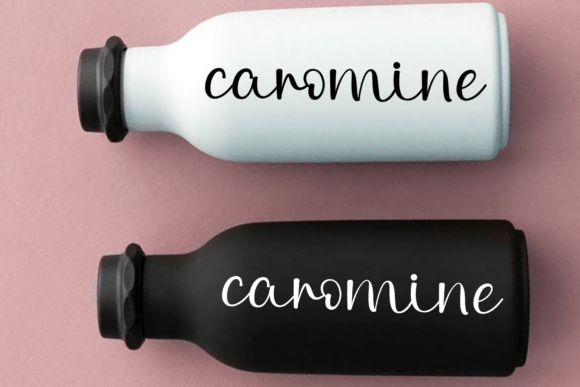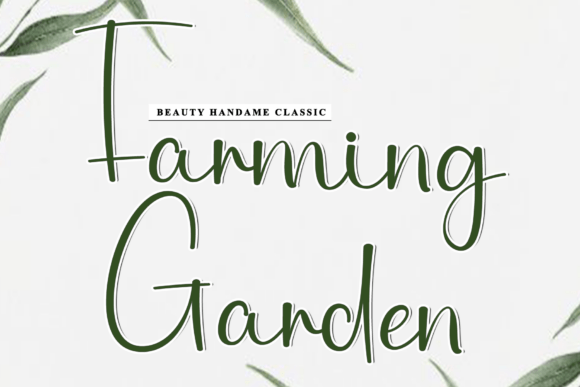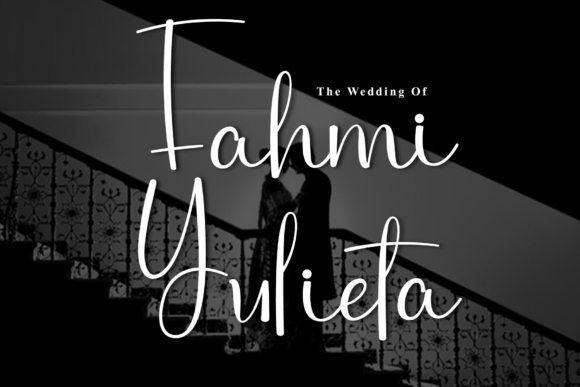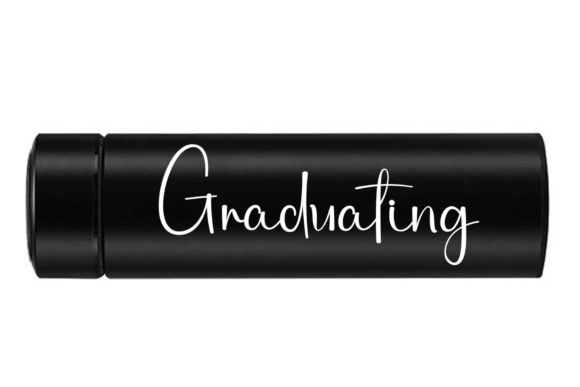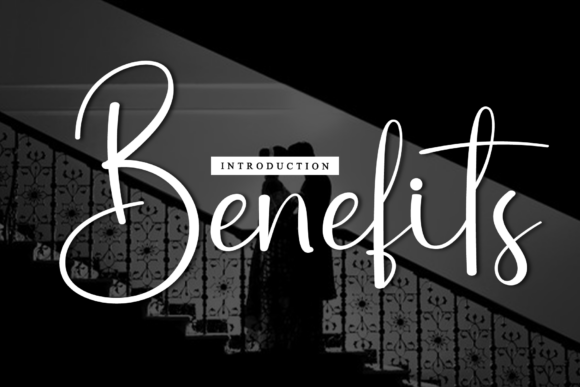
Discover the Charm of Benefits Font: Elevate Your Designs with a Timeless Handwritten Style
Are you on the hunt for a font that can add a touch of elegance and whimsy to your designs? Look no further than Benefits Font, a lovely and timeless handwritten font that is sure to capture the hearts of designers and crafters alike. In this article, we’ll dive into the world of Benefits Font, exploring its unique features, and the numerous benefits it can bring to your creative projects.
A Font that Brings Your Designs to Life
Benefits Font is more than just a collection of letters – it’s an experience. Every letter has a unique and beautiful touch, which will make your design come alive! The font’s handwritten style is both classic and modern, making it the perfect choice for a wide range of applications, from eye-catching logos and branding to inspiring quotes and social media graphics.
The Perfect Choice for Designers and Crafters
Whether you’re a seasoned designer or a crafter looking to add a personal touch to your projects, Benefits Font is an excellent choice. The font’s versatility and charm make it suitable for various design styles, from rustic and vintage to modern and minimalist. With Benefits Font, you can create stunning visual content that resonates with your audience and sets you apart from the competition.
Key Benefits of Using Benefits Font
- Elegant and Timeless Design: Benefits Font boasts a beautiful, handwritten design that will add a touch of sophistication to your projects.
- Unique Lettering: Each letter has a distinct character, ensuring that your designs stand out from the crowd.
- Versatile: Suitable for a wide range of applications, including logos, branding, quotes, social media graphics, and more.
- Easy to Read: The font’s clear and legible design ensures that your message is conveyed effectively.
- Customizable: Benefits Font can be easily customized to fit your brand’s style and tone.
How to Use Benefits Font in Your Designs
Using Benefits Font in your designs is easy! Here are a few ideas to get you started:
- Logos and Branding: Create a memorable logo or brand identity with Benefits Font.
- Quotes and Social Media Graphics: Add a touch of elegance to your quotes and social media graphics.
- Invitations and Stationery: Use Benefits Font to create beautiful invitations, cards, and stationery.
- Packaging and Labels: Add a personal touch to your packaging and labels with Benefits Font.
Tips and Tricks for Getting the Most out of Benefits Font
To get the most out of Benefits Font, here are a few tips and tricks to keep in mind:
- Experiment with Colors: Benefits Font looks great in a variety of colors, so don’t be afraid to experiment and find the perfect hue for your design.
- Mix and Match: Combine Benefits Font with other fonts to create a unique and visually appealing design.
- Pay Attention to Kerning: Make sure to adjust the kerning to ensure that your text is evenly spaced and visually appealing.
In conclusion, Benefits Font is a timeless and elegant handwritten font that is sure to elevate your designs to the next level. With its unique lettering, versatility, and charm, it’s the perfect choice for designers and crafters looking to add a personal touch to their projects. So why wait? Discover the charm of Benefits Font today and start creating stunning visual content that resonates with your audience!